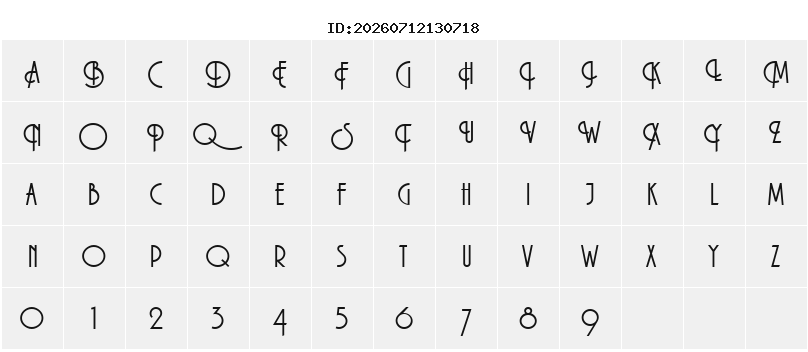
Macarena Preview
• Font Name: Macarena
• Full Font Name: Macarena
About Macarena.ttf
Macarena.ttf is a modern, elegant sans-serif font designed for ultimate readability and visual harmony. Perfect for branding, headlines, web design, and print materials.